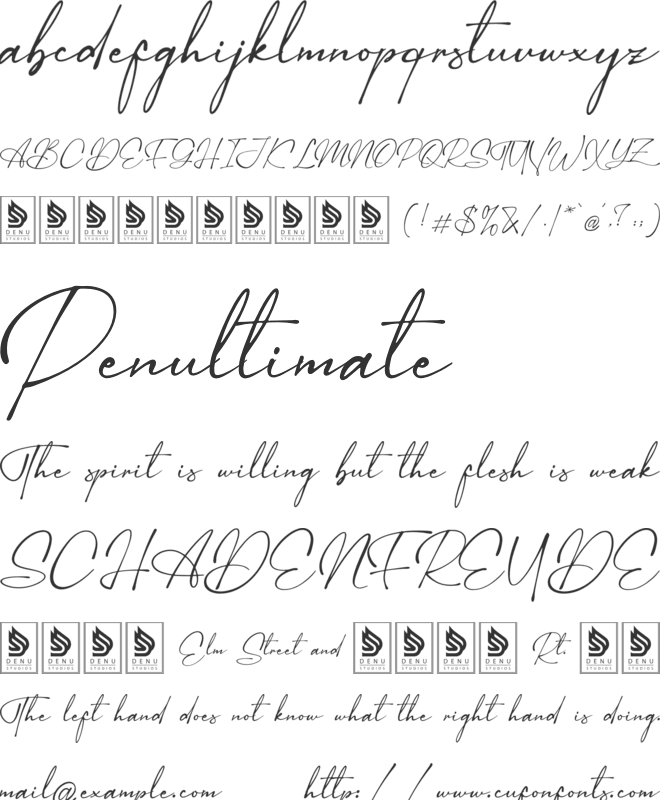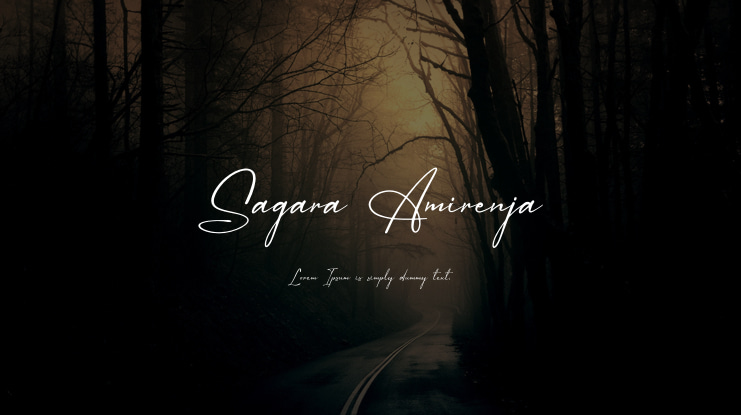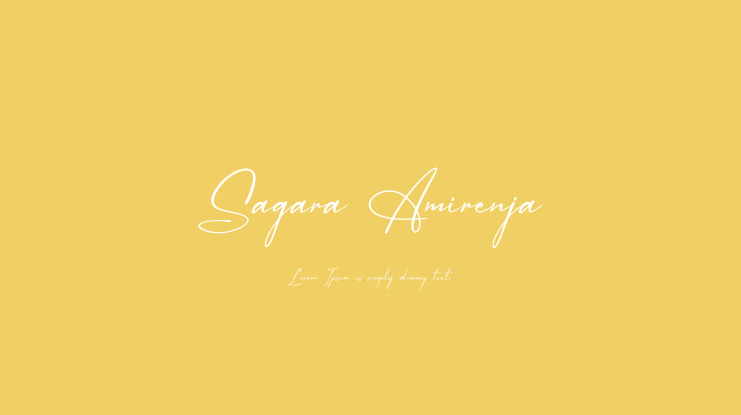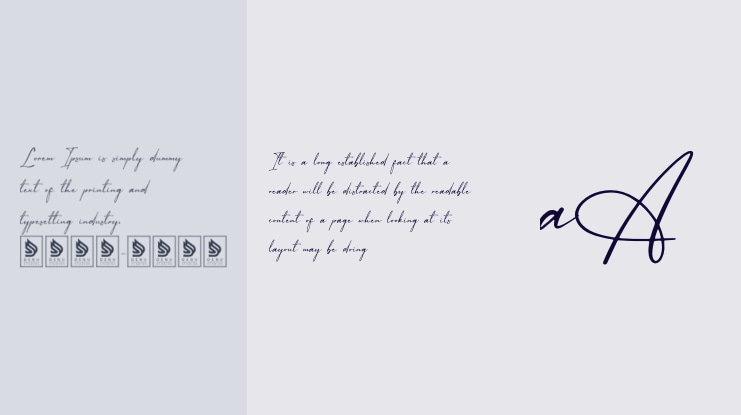
Sagara Amirenja | New Classic Signature product packaging, mugs, quotes, posters, shopping bags, t-shirts, book covers, name card, invitation cards, greeting cards, label, photography, watermark, special events, and all your other lovely projects that need a New Classic Signature taste.